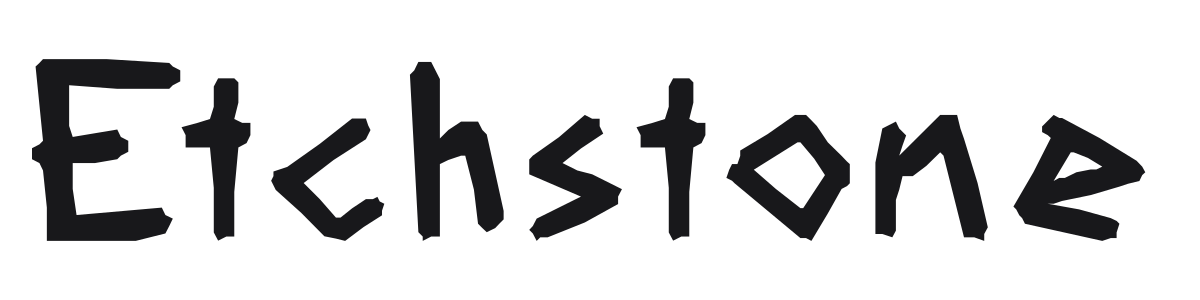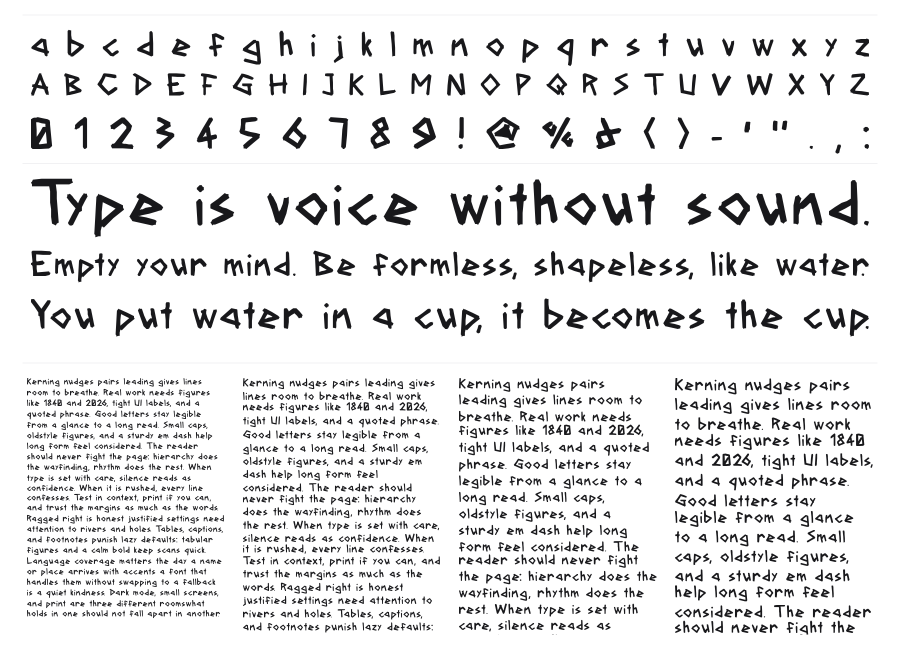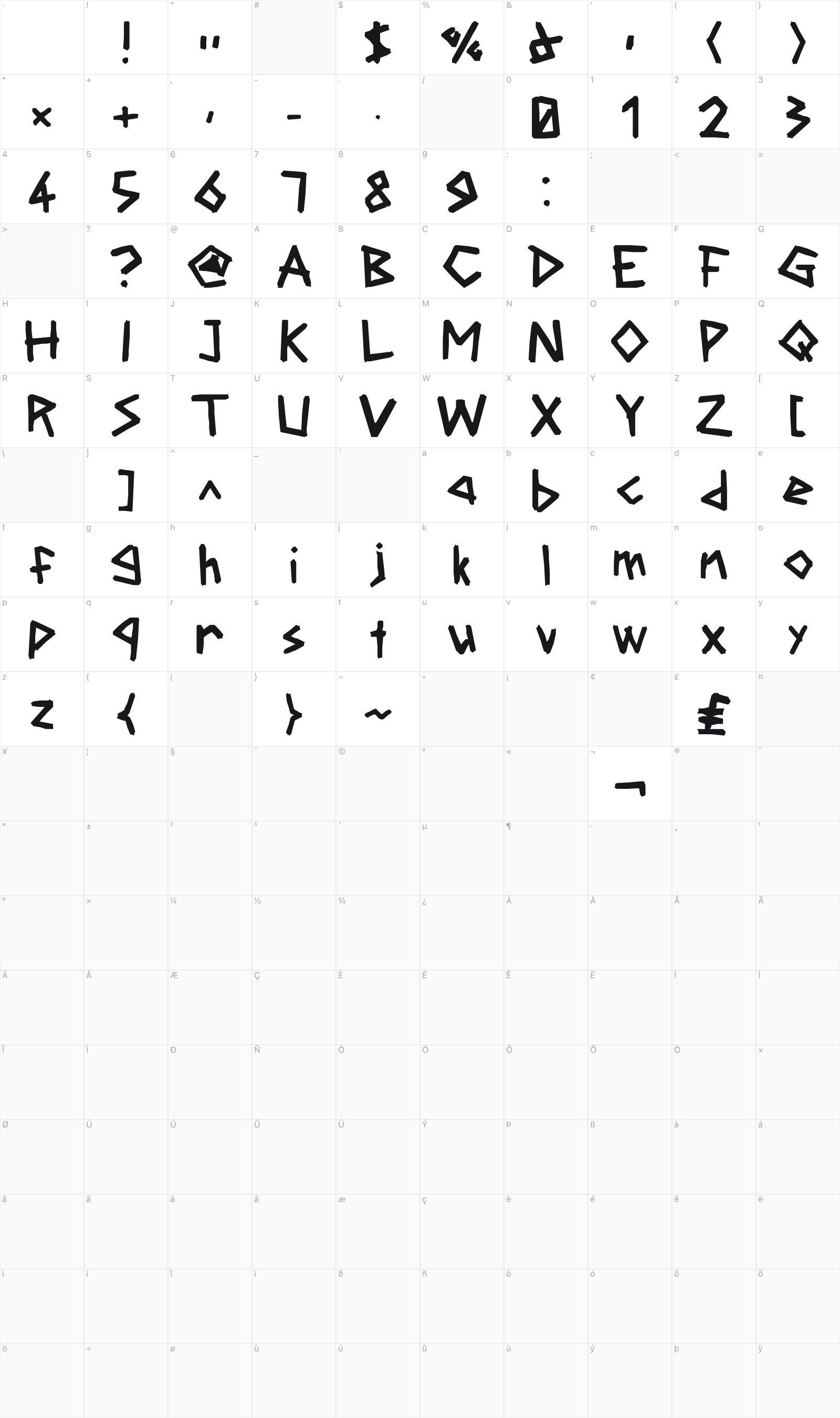
Etchstone
Etchstone is a rough handwritten display font with the look of quick, expressive marker strokes. Each character carries slight irregularities in angle and weight, keeping the texture lively and authentic rather than mechanical. It brings a raw, personal energy to signage, packaging, and informal branding.